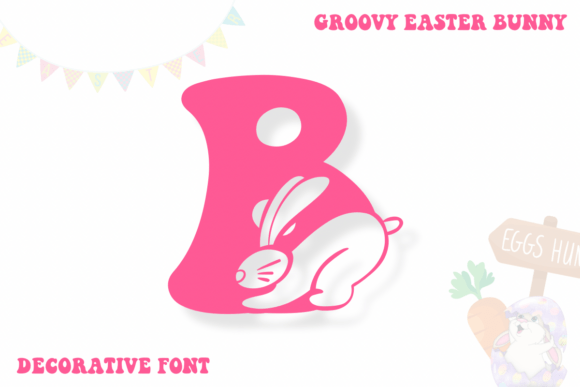
Hop into Spring with a Groovy Twist
As you start planning your Easter projects, I’m sure you’ve been searching for that perfect font to add some extra magic to your designs. I know I have! There’s something about seeing a beautiful Easter-themed project come together that gets me excited for the holiday season. And that’s exactly what inspired me to dive into the world of Groovy Easter Bunny Font – a playful, decorative typeface that’s sure to make your Easter projects hop with joy.
The Groovy Easter Bunny Font is a fun and bold font where each letter features an adorable bunny twist. It’s perfect for Easter-themed projects, party invitations, kids’ crafts, and holiday merchandise. This unique font is a valuable addition to any designer’s toolkit, offering a fun and creative way to add some festive flair to your designs.
Groovy Easter Bunny Font Key Features
- Font Style: A fun, playful and whimsical font, perfect for Easter-themed designs, greeting cards and other creative projects.
- Character Set: Includes a wide range of characters, including uppercase and lowercase letters, numbers, punctuation marks and Easter-themed symbols.
- Unique Characteristics: Features a distinctive Easter bunny-inspired design, with bold lines, colorful accents and a playful feel that’s sure to delight.
Groovy Easter Bunny Font Review
I recently had the chance to work with the “Groovy Easter Bunny Font” and I’m here to share my honest thoughts.
- The font’s whimsical and playful vibe is perfect for spring-themed projects, especially those centered around Easter.
- The font’s bold and colorful design makes it a great choice for posters, social media graphics, and other visual materials.
- The font includes a wide range of glyphs and symbols, making it suitable for various design needs.
- The font may not be suitable for more formal or professional projects due to its playful and casual nature.
- The font’s design may be overwhelming for smaller text sizes, so it’s best to use it in larger formats.
- The font could benefit from additional language support for non-English languages.
Overall, the “Groovy Easter Bunny Font” is a fun and creative addition to any designer’s toolkit. While it may have some limitations, it’s perfect for spring-themed projects and can add a touch of whimsy to any design. I’d definitely recommend it for designers looking for a unique and playful font.
For the best results, use the “Groovy Easter Bunny Font” for creative projects, such as invitations, posters, and social media graphics.
Experiment with different font sizes, colors, and combinations to create unique and eye-catching designs.
Consider using the font in conjunction with other Easter-themed graphics and elements to create a cohesive look.